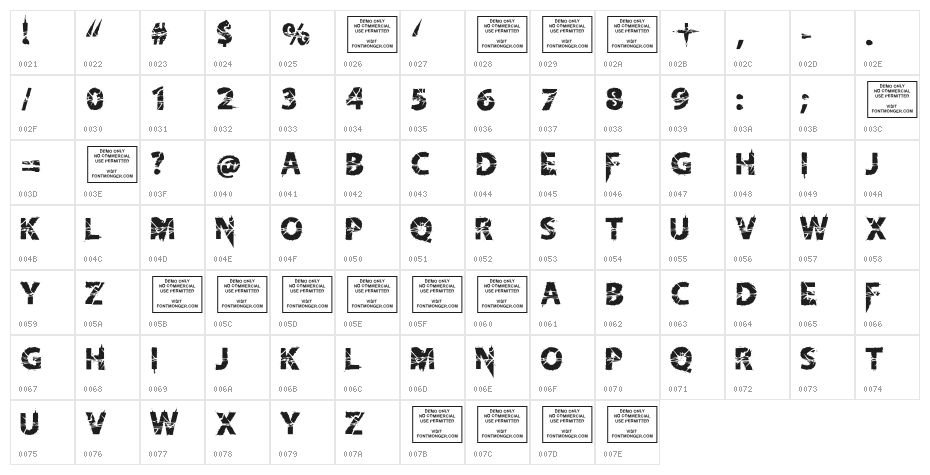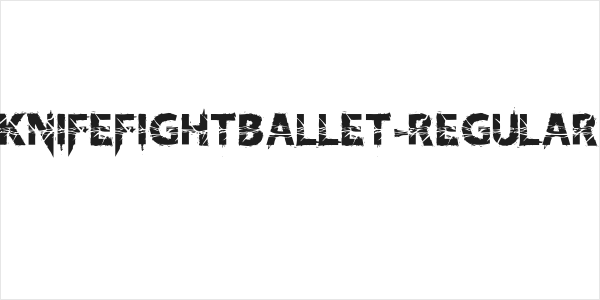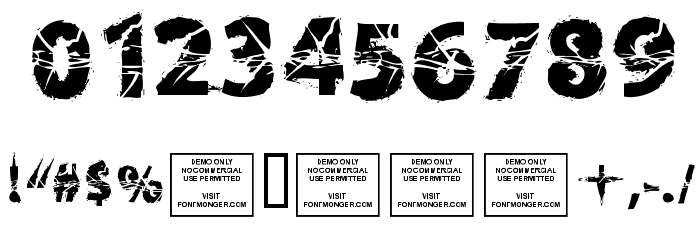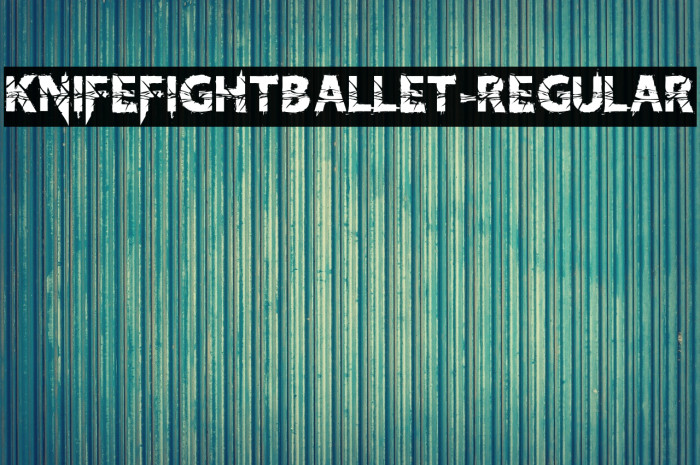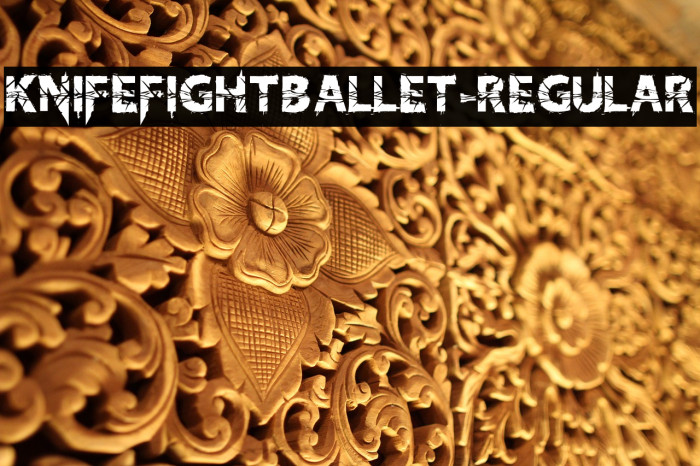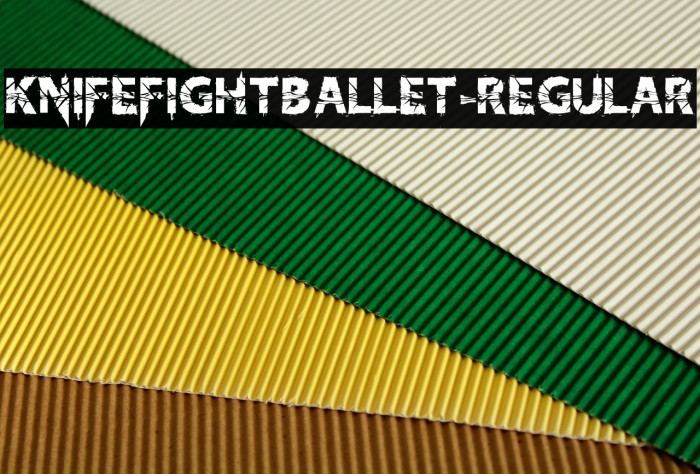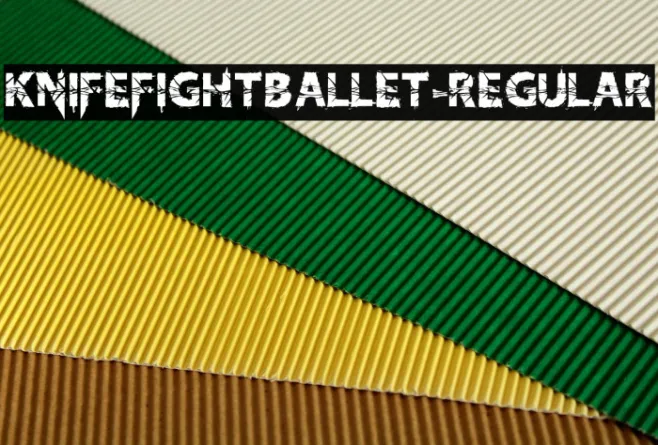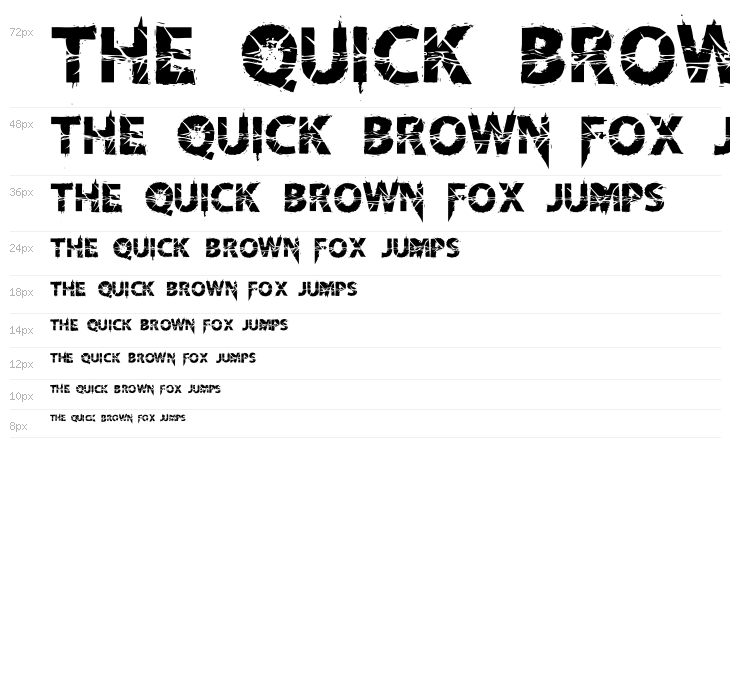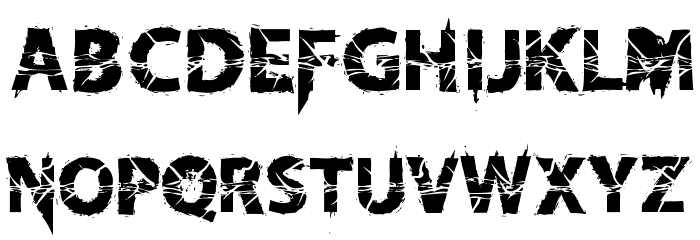
KnifeFightBallet-Regular Font
KnifeFightBallet-Regular Description
This font features a bold and aggressive design with sharp, jagged edges that give it a distressed and chaotic appearance. The characters are heavily stylized, resembling shattered glass or torn metal, which adds a sense of movement and energy. The uppercase and lowercase letters maintain a consistent style, with each character exhibiting unique cuts and angles that enhance the overall rugged aesthetic. The numbers and special characters follow the same design principles, ensuring a cohesive look across all elements. This font is ideal for projects that require a strong, impactful visual statement.
| Overall Style | Modern, Edgy |
| Proposed Projects | Ideal for music album covers, movie posters, video game titles, or any project needing a bold, edgy aesthetic. |